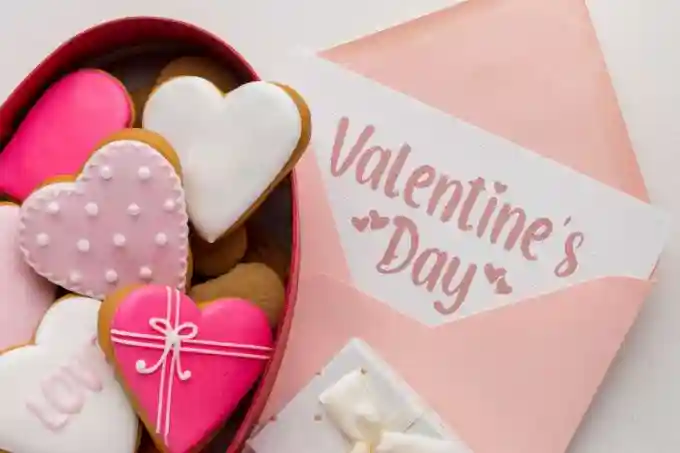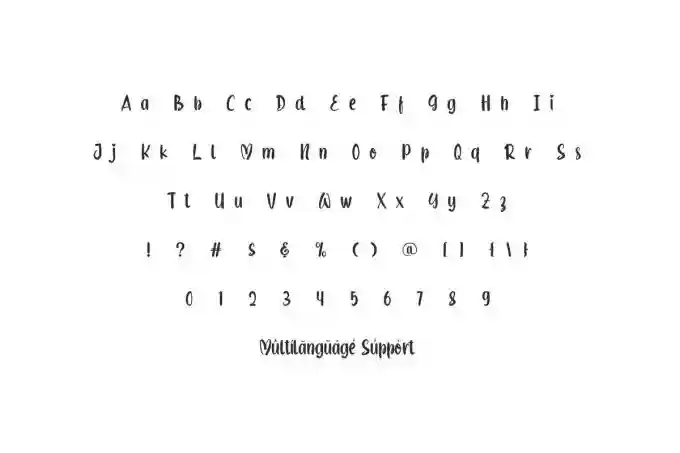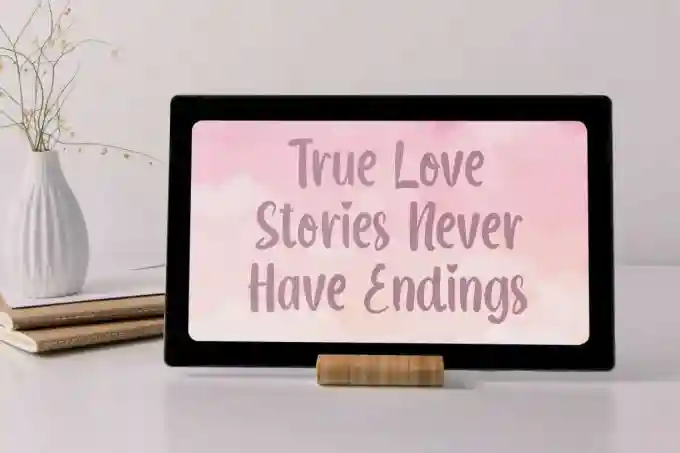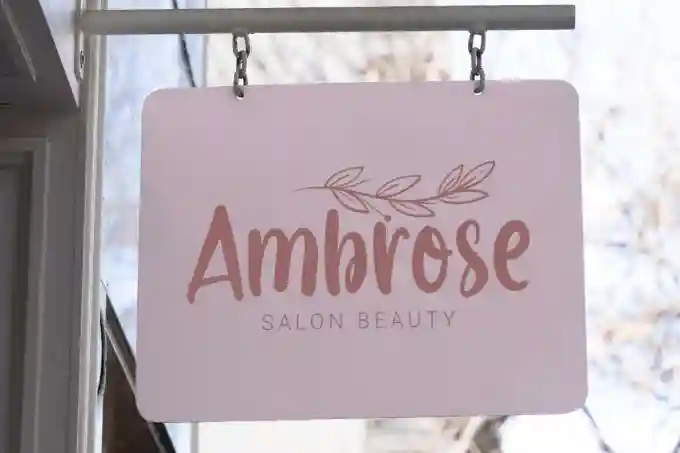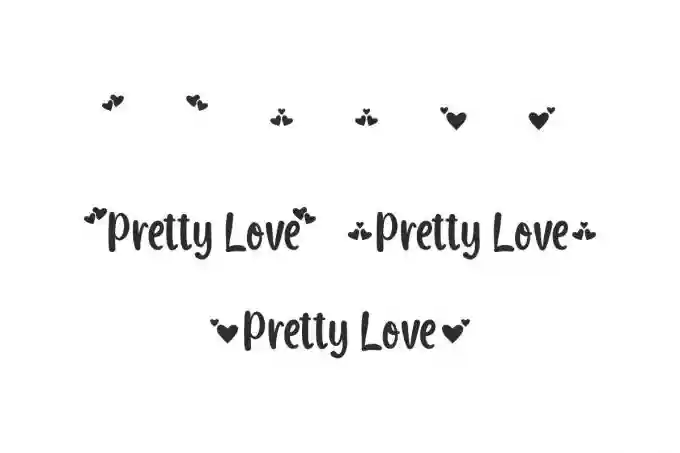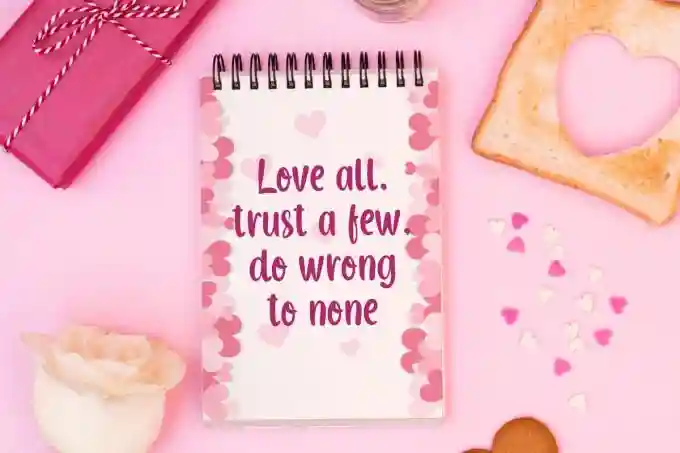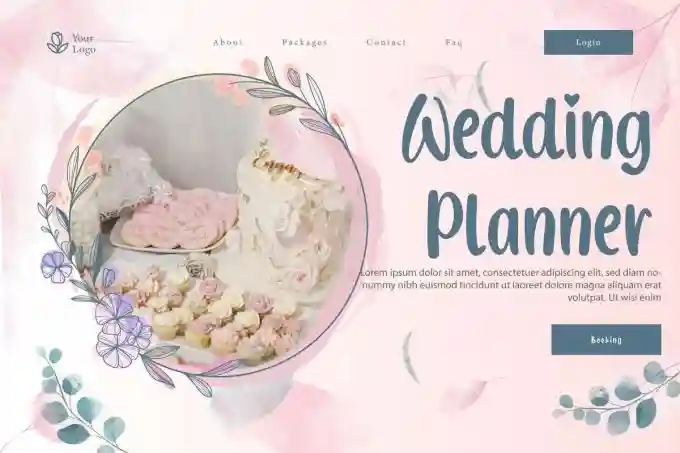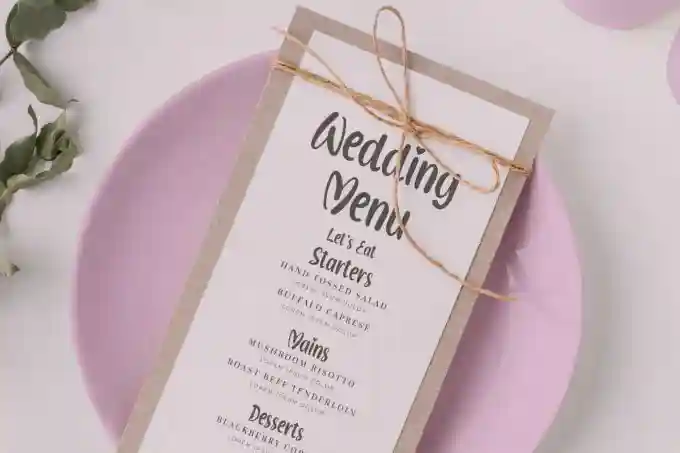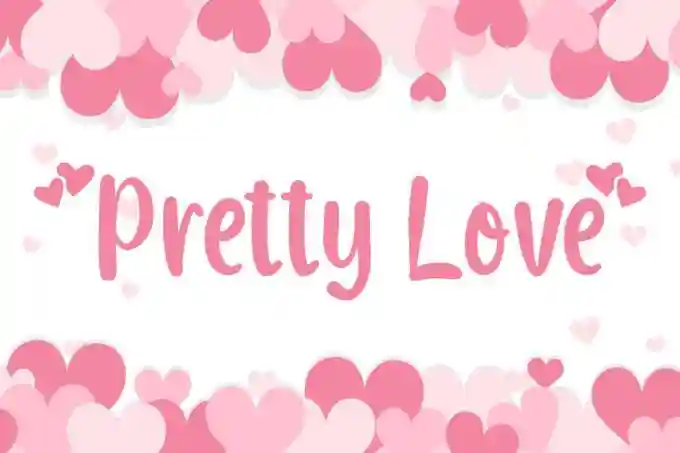
Pretty Love Font is a lovely display font with handwriting style, created by VinType Studio. This font has a beautiful handwritten look that will blend in perfectly with any design you create, such as brand logo, brochure, business card, custom design, frame art, invitation, label, packaging design, poster, quote, screen printing, signage, stationery, website, and more!
Pretty Love Font includes full set of Uppercase and Lowercase Basic Characters, Numerals and Punctuation. This font also contain Swoosh characters that will attract attention and make your company look attractive, such as advertisement, beauty product, event or wedding organizer, fashion, florist, handicrafts, homeware, printing, publishing, spa and salon, etc.